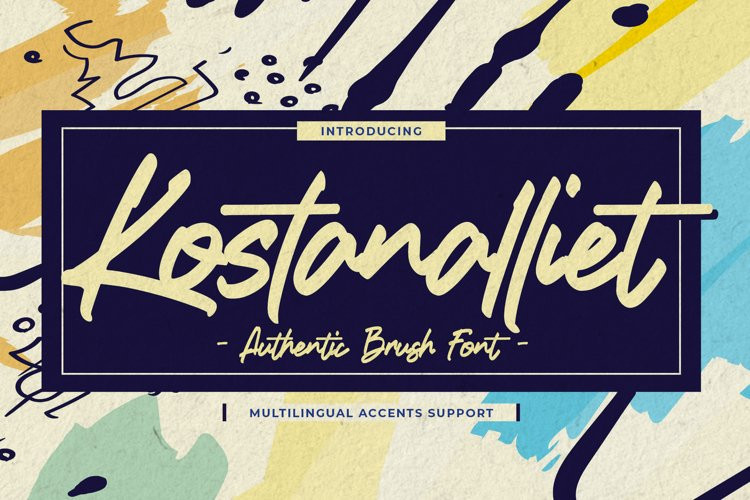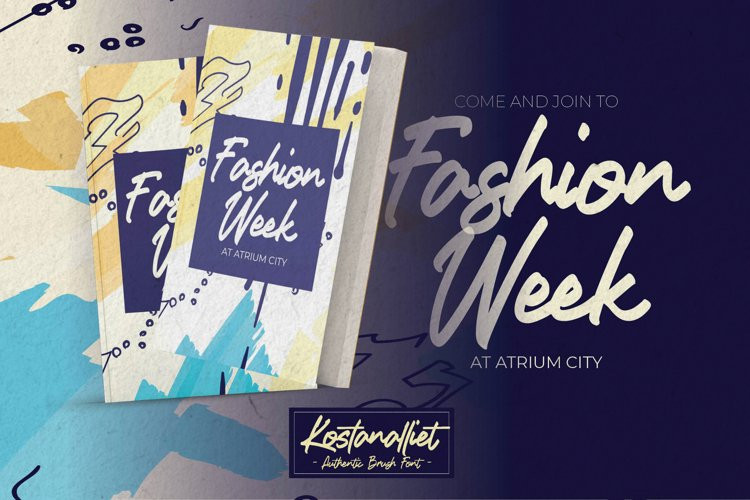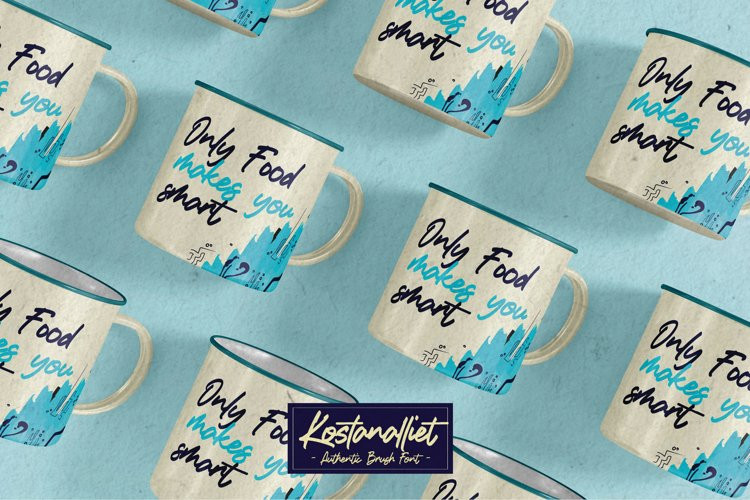
Kostanalliet Font
Kostanalliet FontIntroducing Kostanalliet is Authentic Brush Font. font is a Signature Style and classy style,with a clear style and dramatic movement this font is great for your next creative project such as logos, printed quotes, invitations, cards, product packaging, headers, Logotype, Letterhead, Poster, Design this font is great for your creative projects such as watermark on photography, and perfect for logos & branding, invitation,advertisements,product designs, stationery, wedding designs,label ,product packaging, special events or anything that need handwritting taste.
That is why Kostanalliet has charming, authentic and relaxed characteristic more natural look to your text with a more natural look to your text. You can activate Ligature OpenType panel.